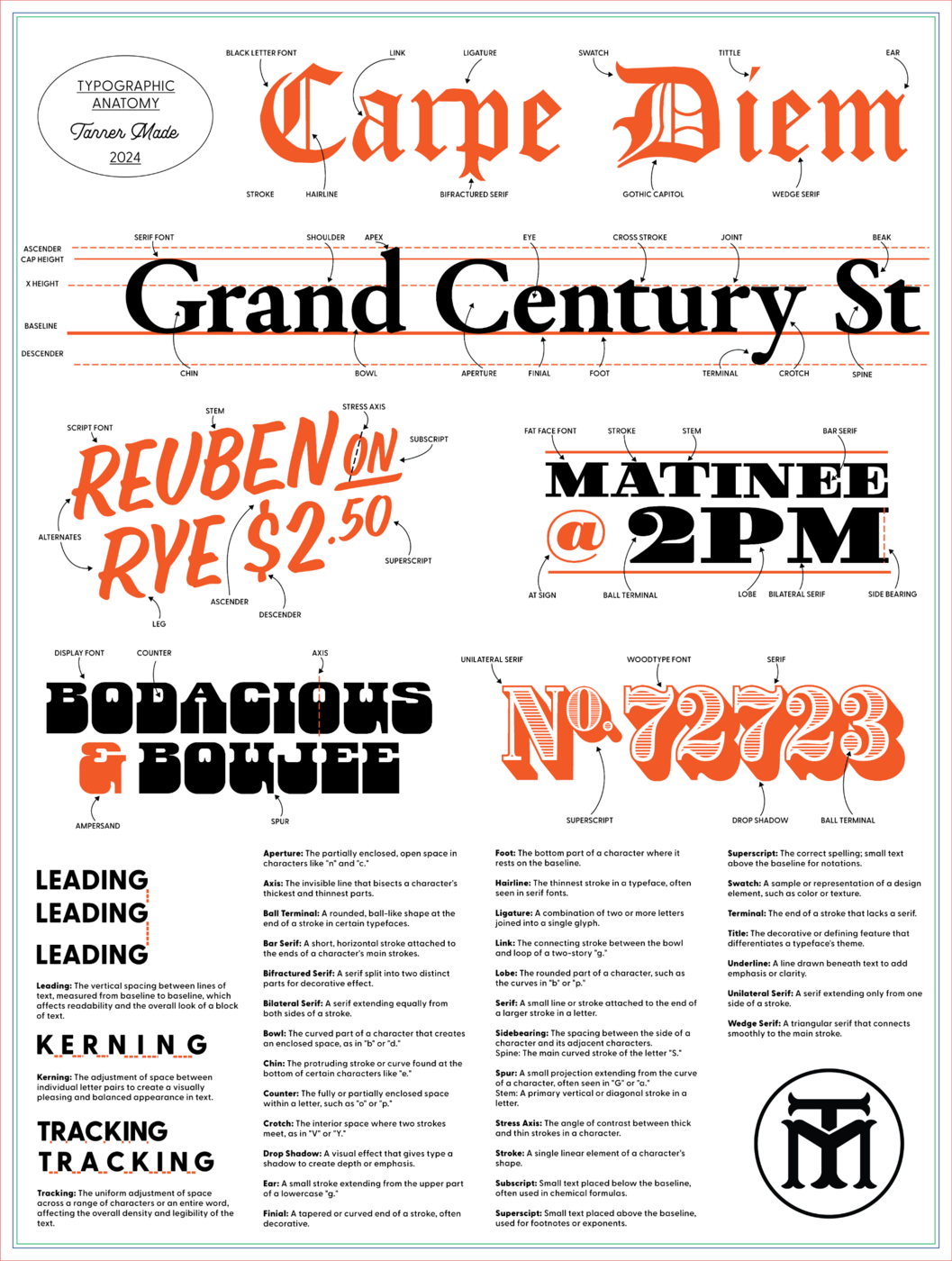
Creating typography anatomy poster
I am making a type poster, here is what I have, I want to make sure I am labeling things correctly. Let me know if you see any spelling, labeling or definition errors! Thank you!TypographyPoster.thumb.png.ae3ba88348fe108b4029fbba522f420e.png
Well, it’s good that you are asking for a “peer review“. But honestly, I see way too many problems to even attempt to fix this. Unfortunately, content like this creates more harm than good, as it becomes a telephone game, where stuff is copied from one questionable internet source to the next, adding more and more errors with each step. It’s better left to educators who can create this content based on a long-time professional experience and credible sources (like a sufficiently large library of typography books).
I am unclear as to what this poster is intended to convey. It strikes me as a mash-up of information about type without any underlying starting point, summary, or cohesion.
For example, the top-most font is a black letter font. Why? Of all type styles to open with, why a black letter?
Below that, you use a fairly classic serif font to illustrate characteristics such as x-height, ascenders, descenders, etc. But nowhere in there (unless I missed it) do you indicate that the font height is the height from the ascender line to the descender line.
I am far from an expert in typography. I'm a neophyte. Looking at this chart makes my head spin -- I can't conceive of any use for it. Those with my rudimentary knowledge of typography don't need it, and I respectfully suggest that for someone who knows less than I do it will only add to their confusion.